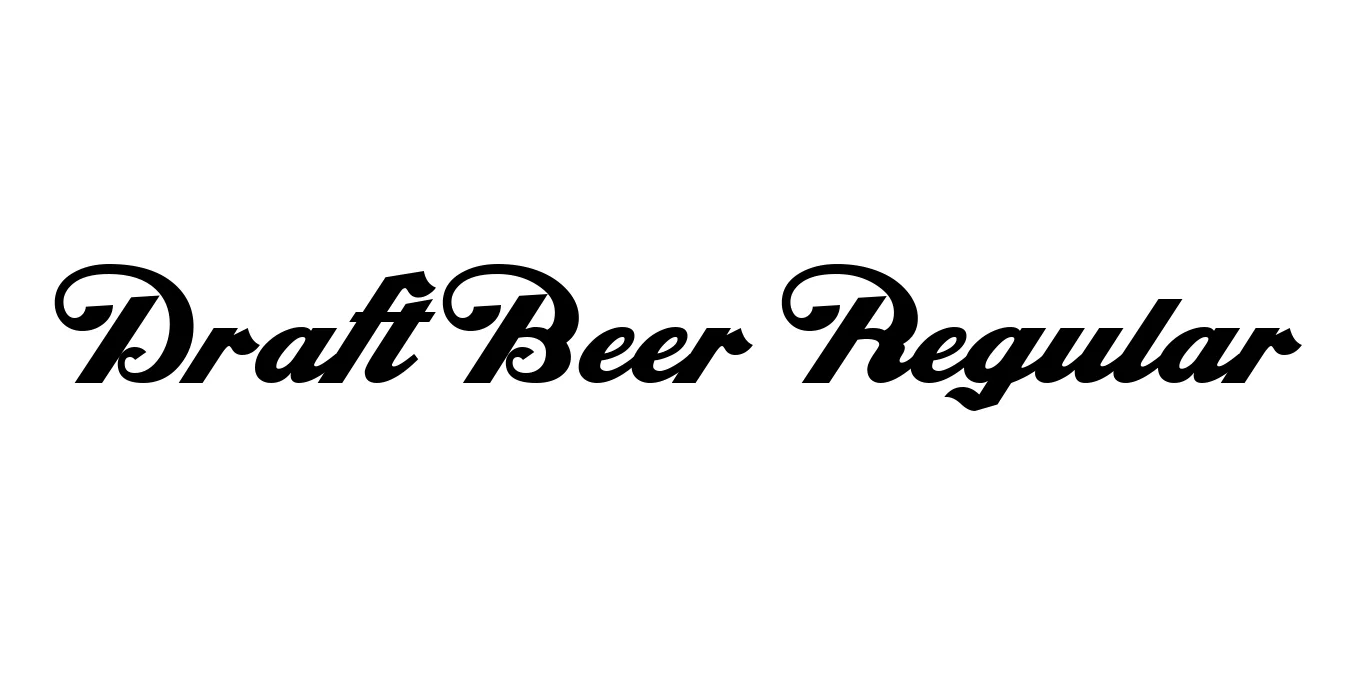
Draft Beer Regular
Designed by Michael Hagemann
Draft Beer Regular is a casual script typeface designed by Michael Hagemann of FontMesa. Inspired by the classic hand-lettered signage often found in mid-century bars, taverns, and local pubs, it captures a nostalgic, retro feel that is both welcoming and timeless. The font features fluid, connected strokes that mimic the natural movement of a brush or felt-tip marker, providing an organic, human touch to digital designs.
Since its release, this typeface has become a staple for projects requiring a 1950s Americana aesthetic. Its thick weight and consistent rhythmic flow ensure high legibility while maintaining a playful and athletic character. It is widely used in sports branding, beverage packaging, and casual advertising, making it a versatile tool for designers looking to evoke a sense of tradition and craftsmanship in their visual communication.
Draft Beer Regular Best Uses
Perfect for craft beer labels, brewery logos, and tavern signage.
Great for varsity-style logos, athletic team uniforms, and apparel design.
Highly effective for 1950s-inspired advertisements and retro promotional posters.
Ideal for hand-drawn style restaurant menus and chalkboard bar art.